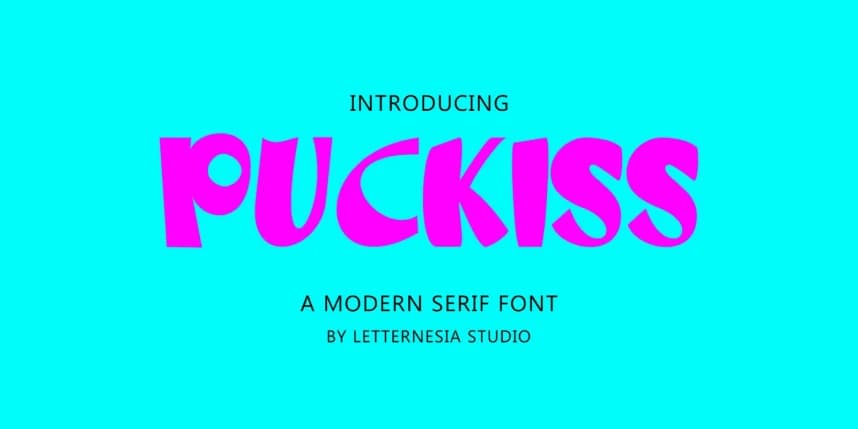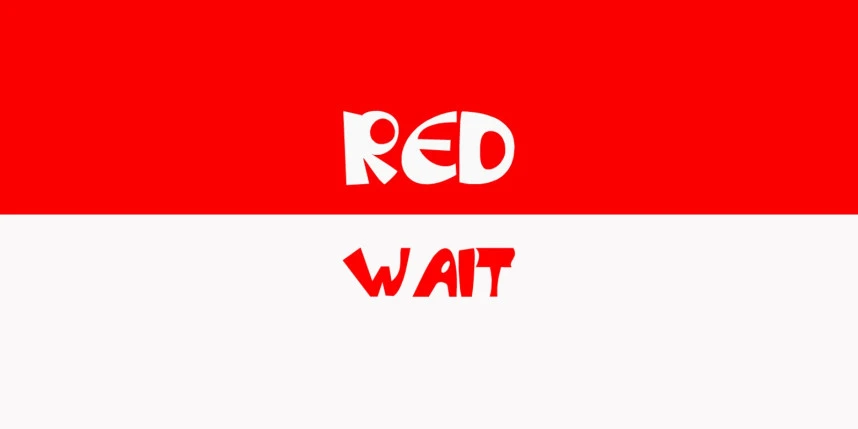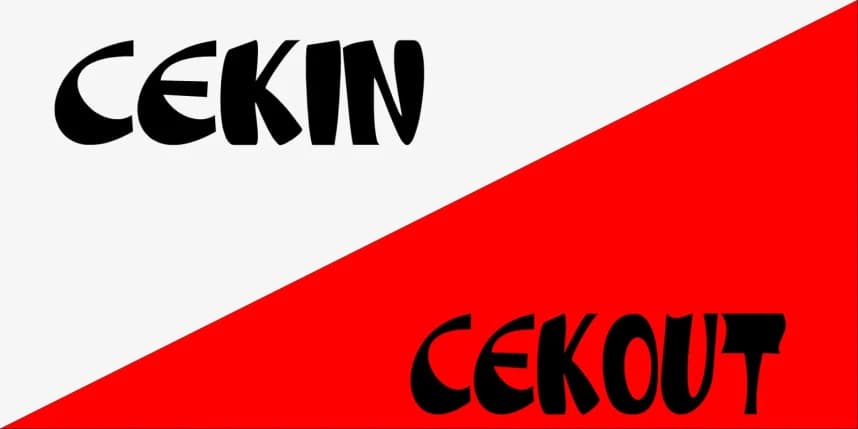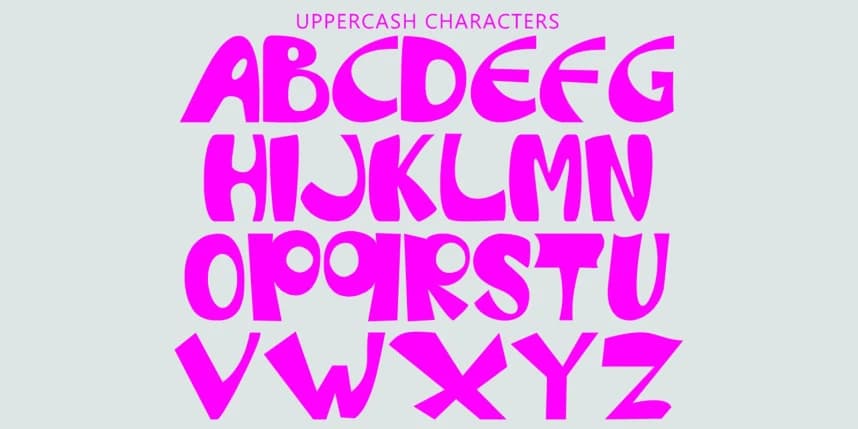
Puckiss Display Font
Puckiss Display Font is a playful and romantic font designed to bring a sweet, cheerful, and love-filled vibe. Inspired by soft yet expressive handwriting, Puckiss is perfect for wedding invitations, greeting cards, packaging design, and any creative project that needs a warm, personal touch.